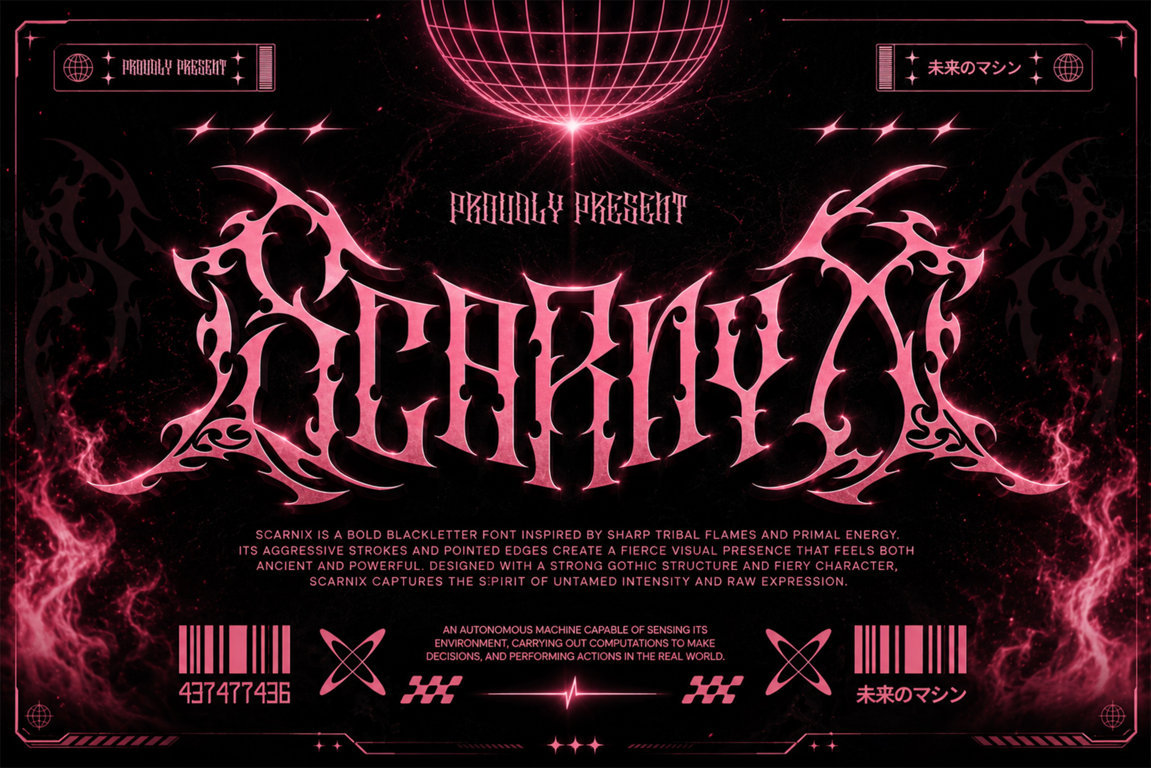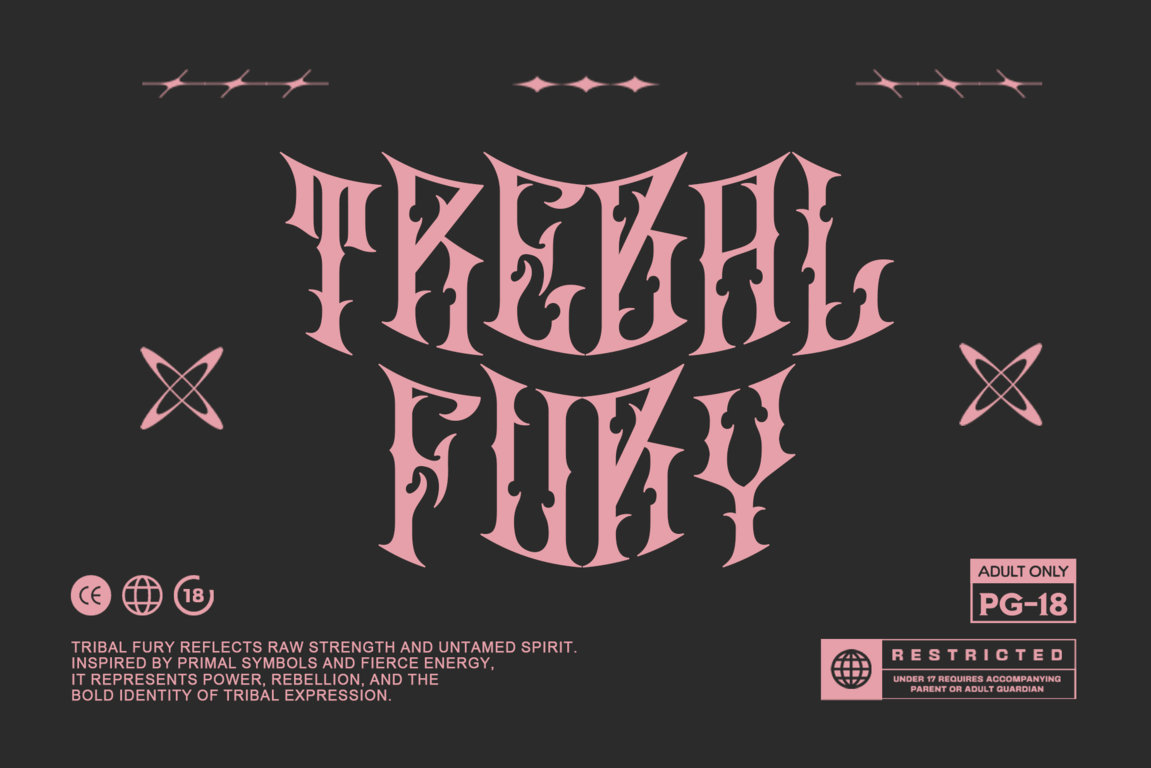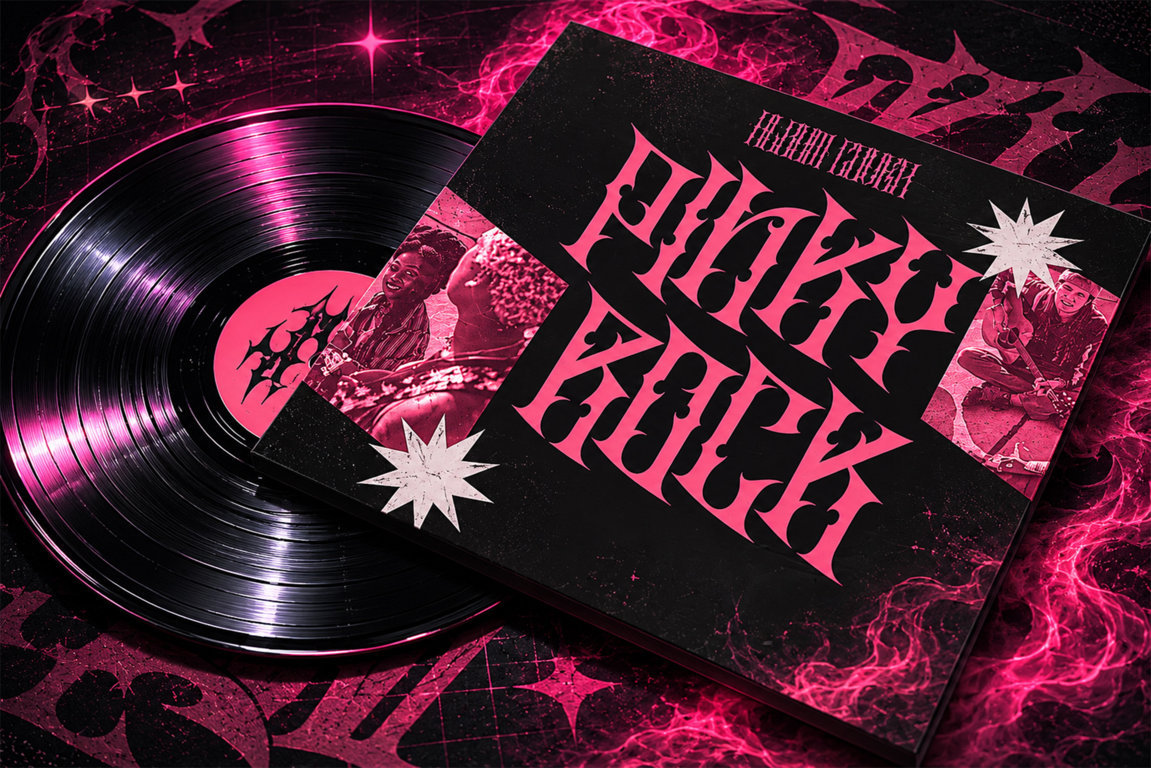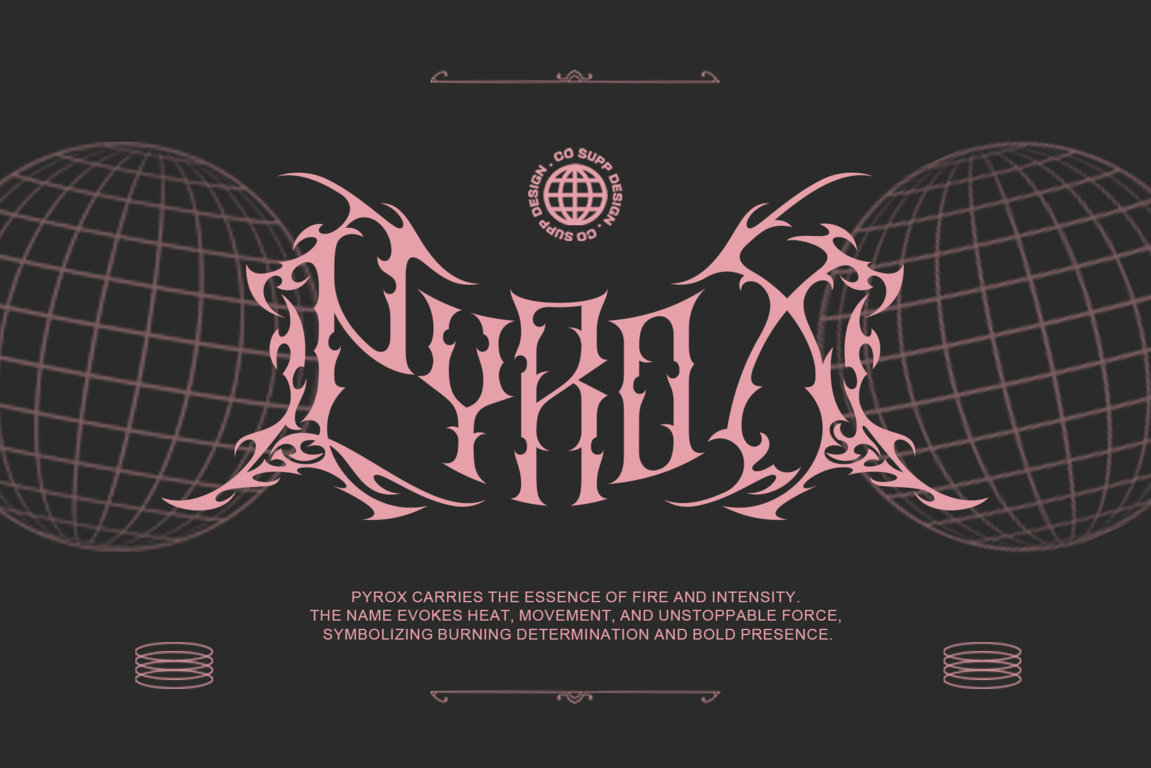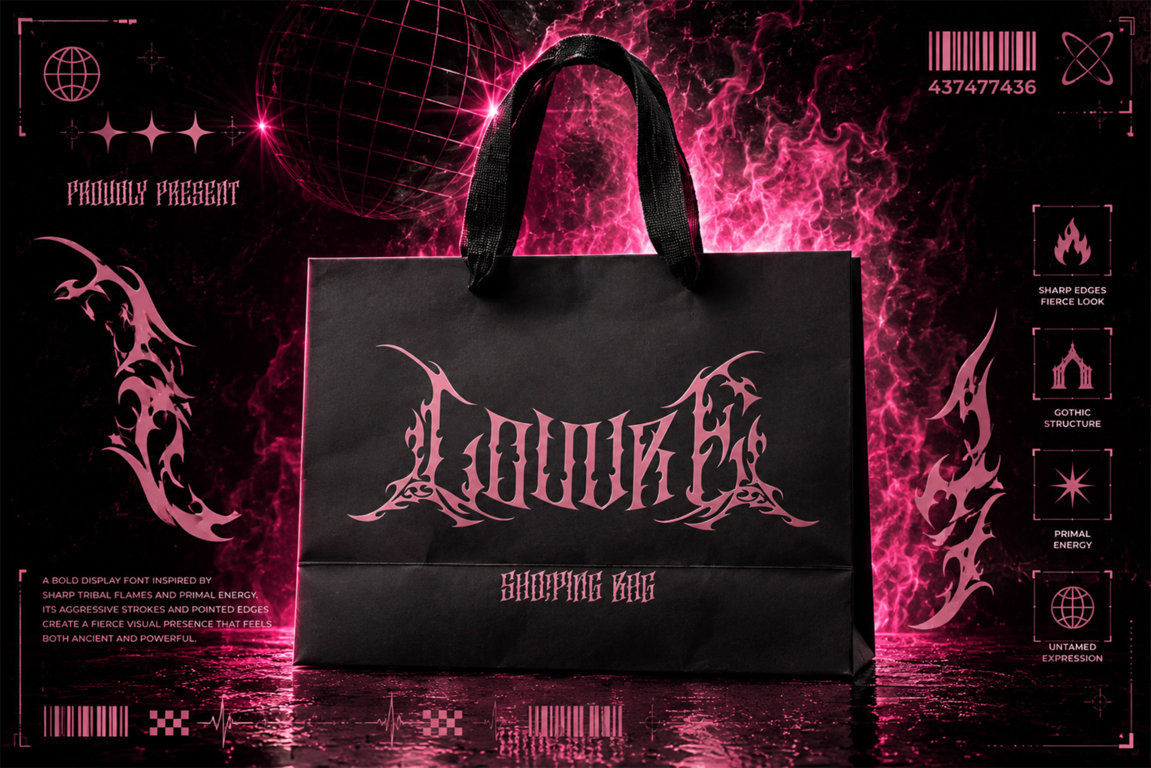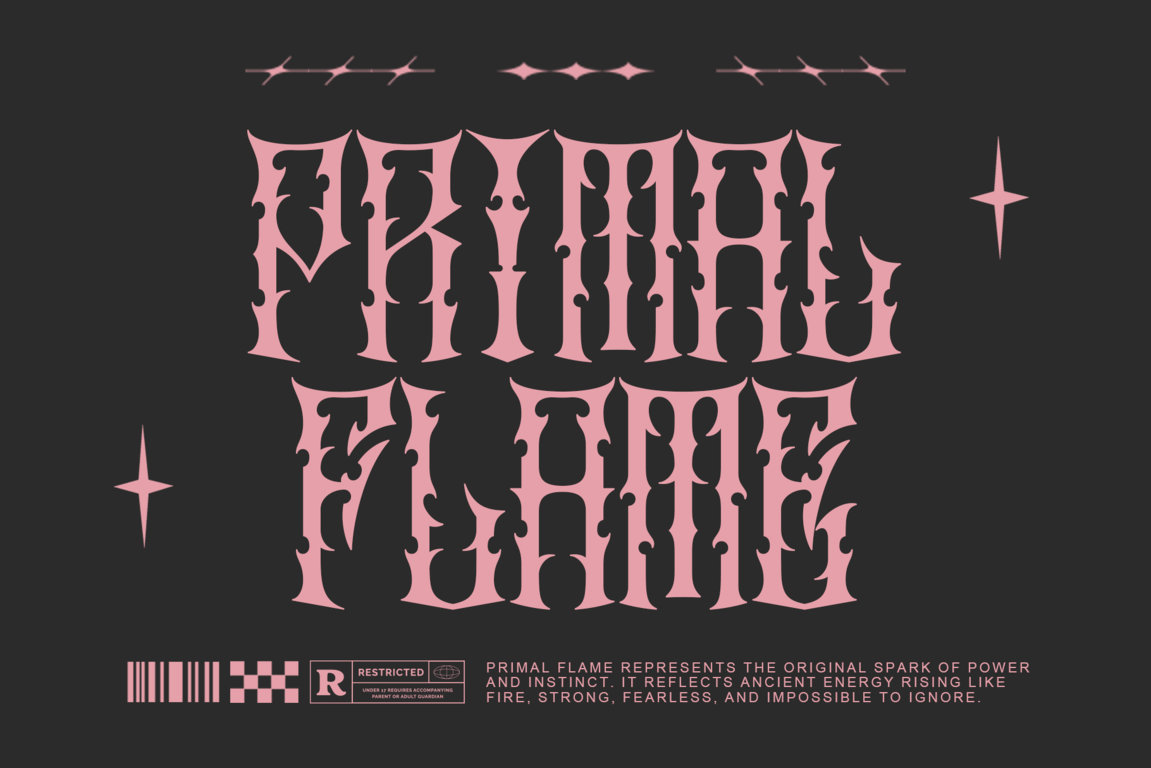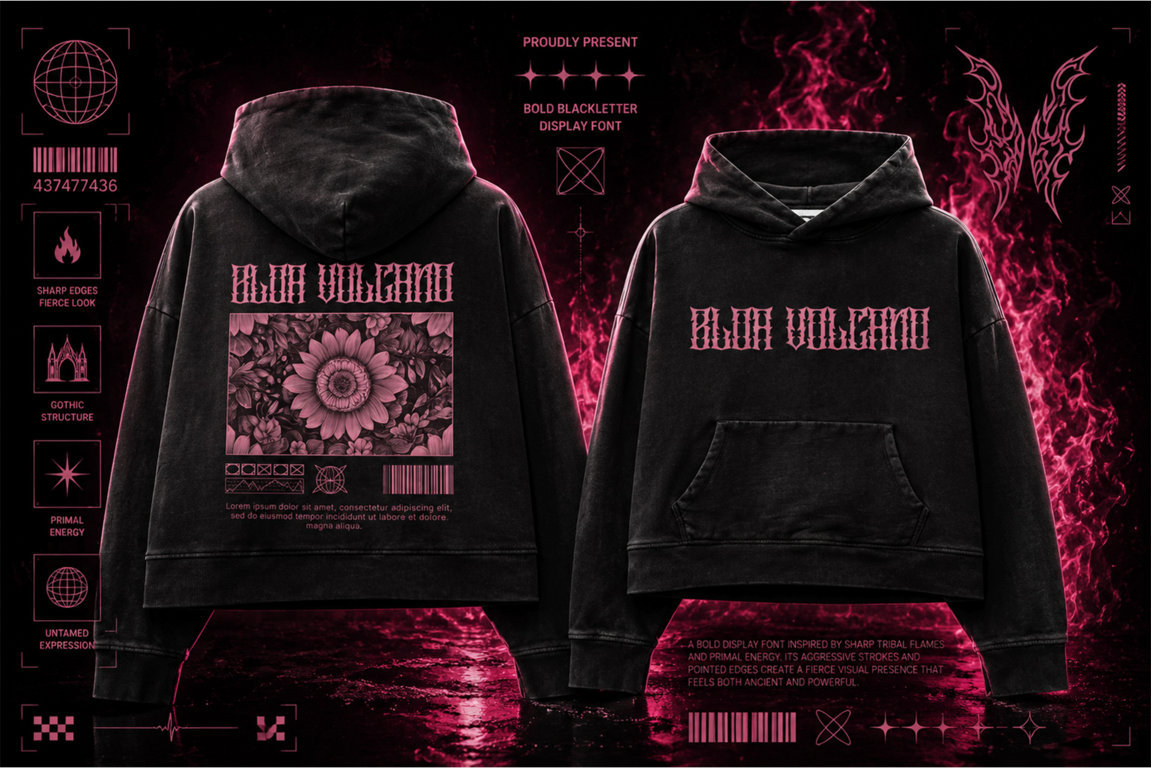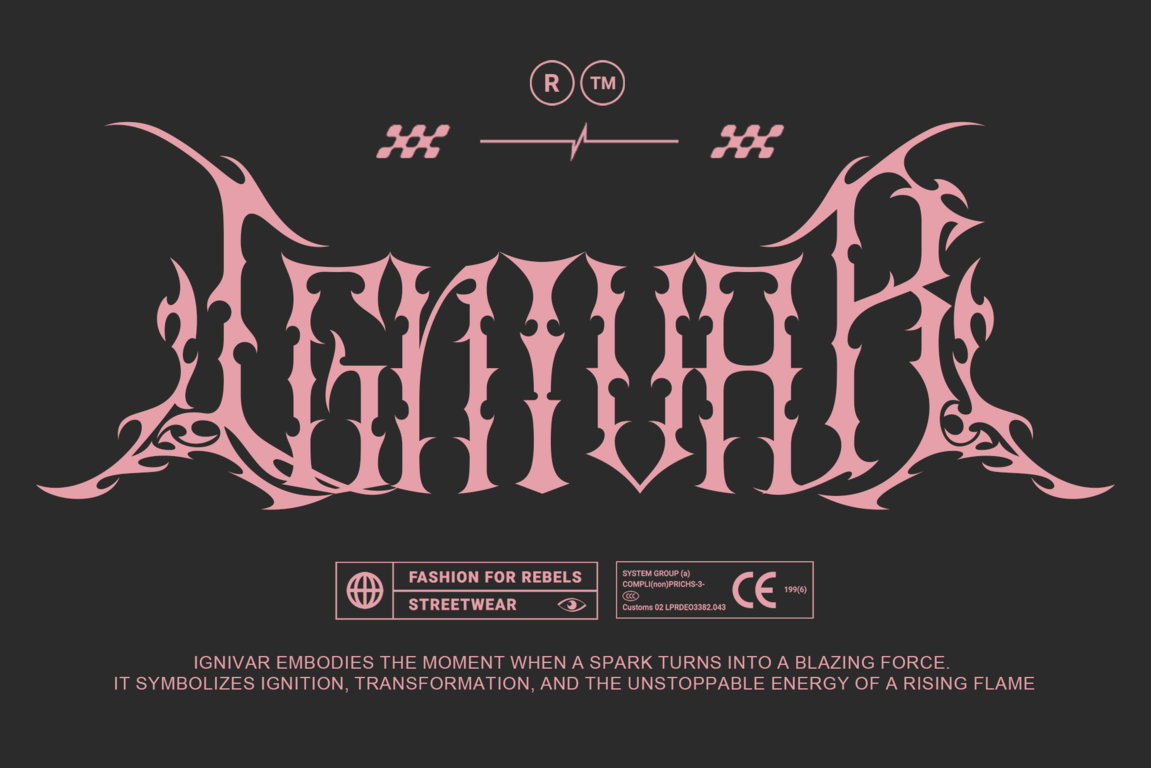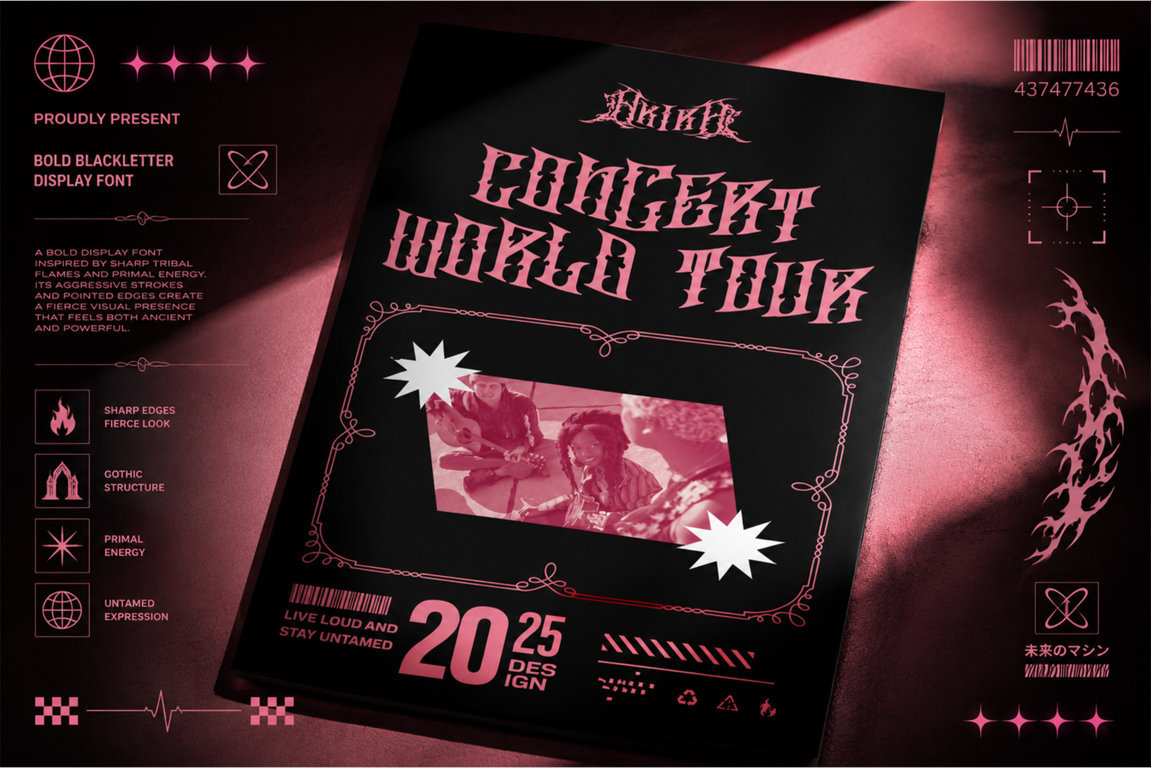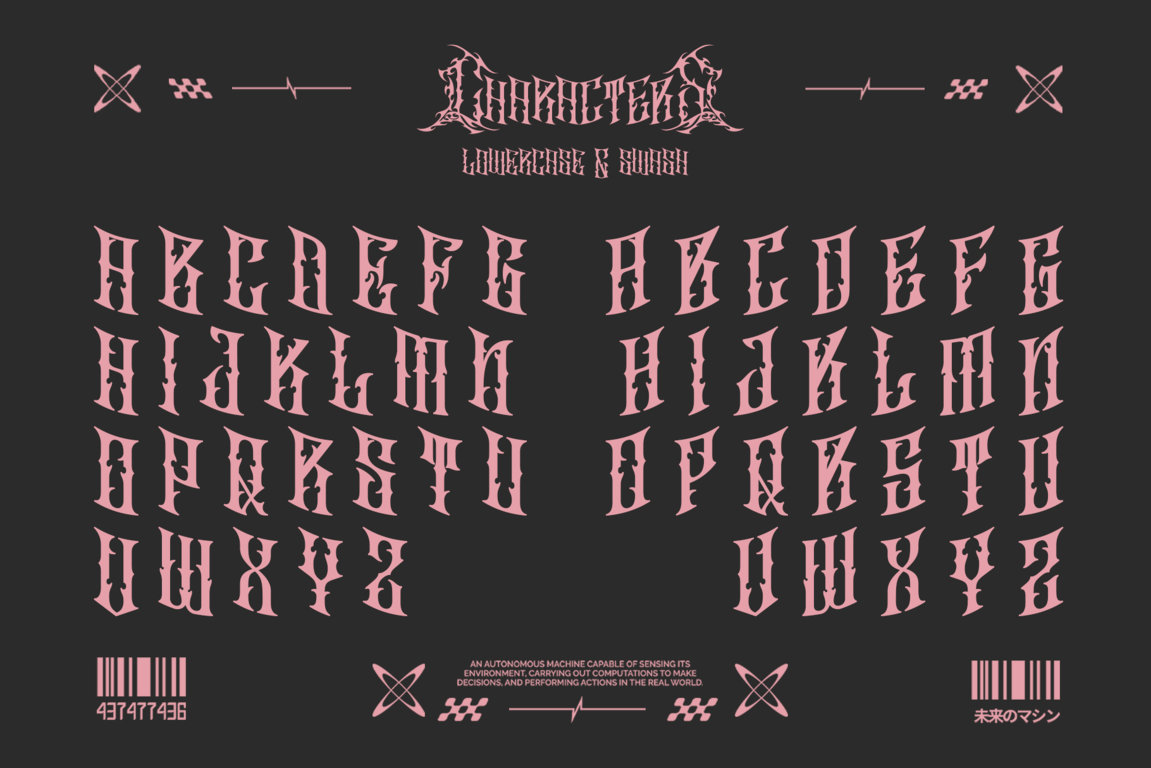
Scarnix is an aggressive blackletter display font born from primal fire, sharp tribal energy, and gothic domination. Crafted with razor-edged strokes, fierce curves, and a powerful symmetrical structure, Scarnix delivers a dark visual presence that feels both ancient and untamed. Inspired by ritual symbols, underground metal aesthetics, and the raw intensity of chaotic expression, every character radiates brutal elegance and commanding power.
Its sharp ornamental details and destructive gothic form make Scarnix perfect for band logos, album artwork, streetwear branding, poster designs, game titles, tattoo graphics, merchandise, cinematic visuals, and dark fantasy creations. More than just typography, Scarnix transforms every word into a weapon of visual impact — loud, fearless, and impossible to ignore.
Unleash the savage energy of Scarnix and let your designs burn with dark authority, primal chaos, and unstoppable intensity.
Features:
- Support multilingual; ä ö ü Ä Ö Ü ß ¿ ¡
- Numerals & Punctuation
- uppercase letters
- Alternate, swash, titling, & Ligature